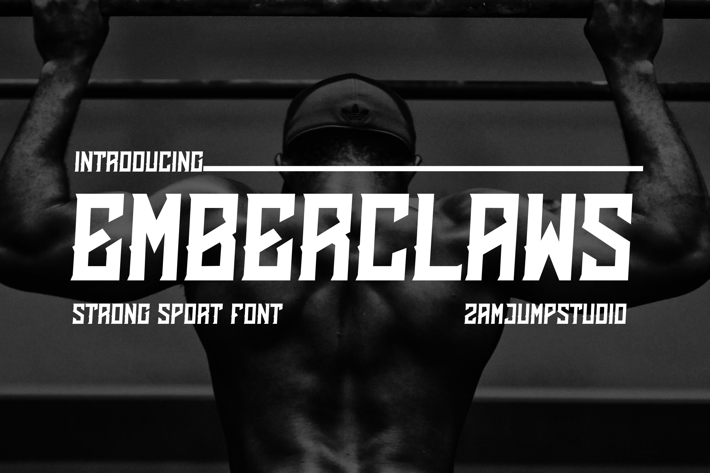
EMBERCLAWS - STRONG SPORT FONT
Emberclaw is a strong sport font designed with uppercase characters. This font is perfect for logos, posters, product labels, or anything else. This logo is available in OTF and TTF as well as WOFF formats.